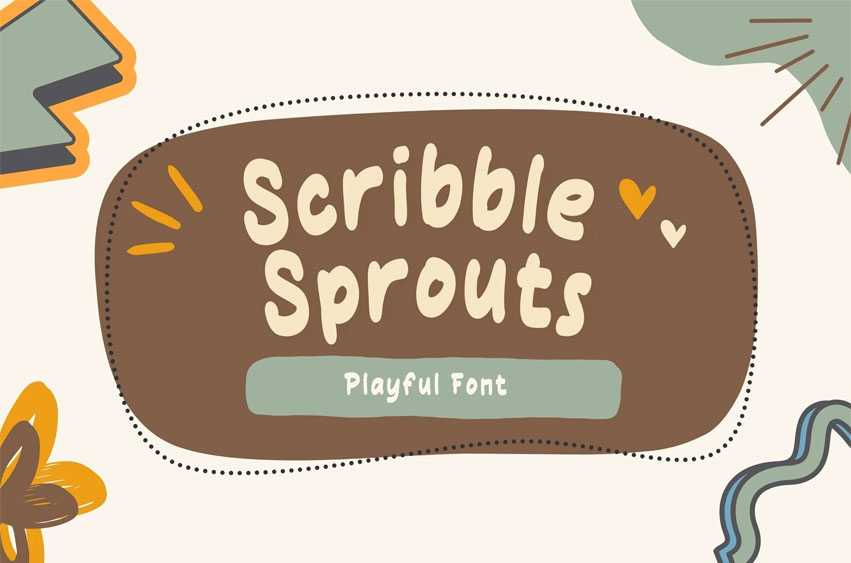
Scribble Sprouts Font
Scribble Sprouts Font is a Handwritten, playful font with bold letterforms that adds a delightful touch of personality to any design.